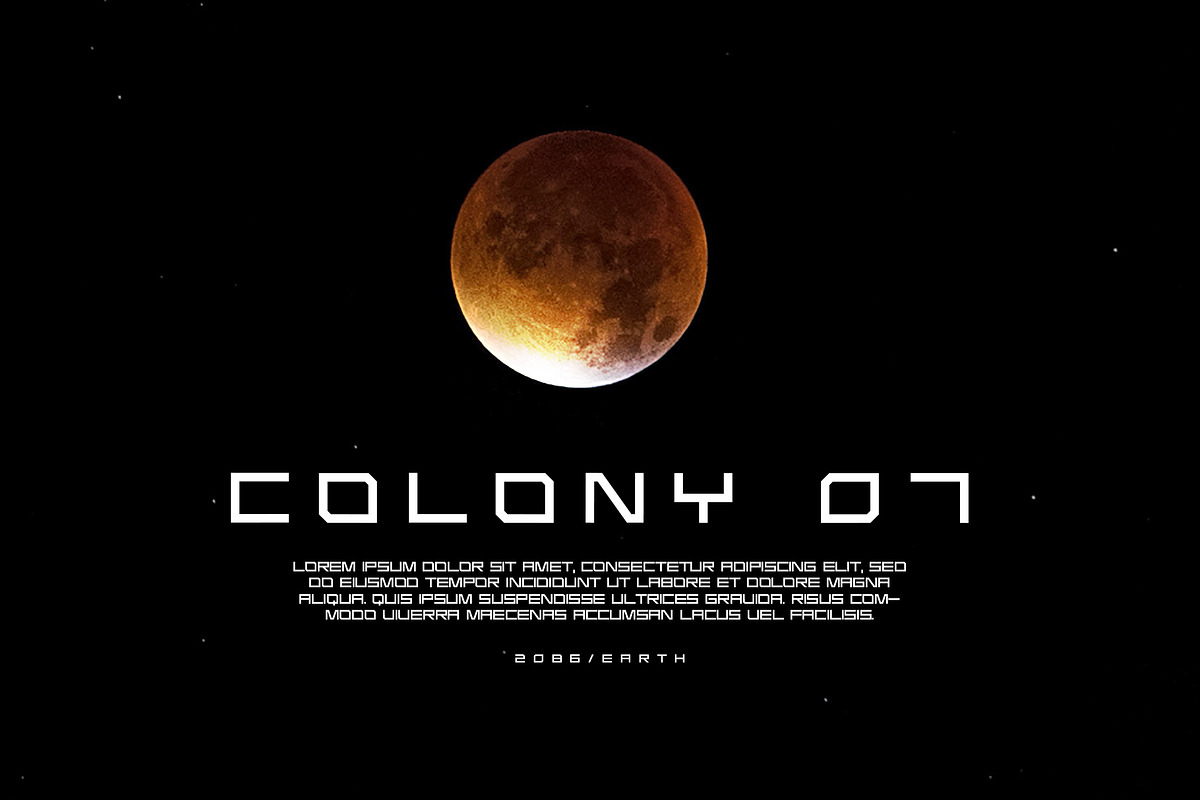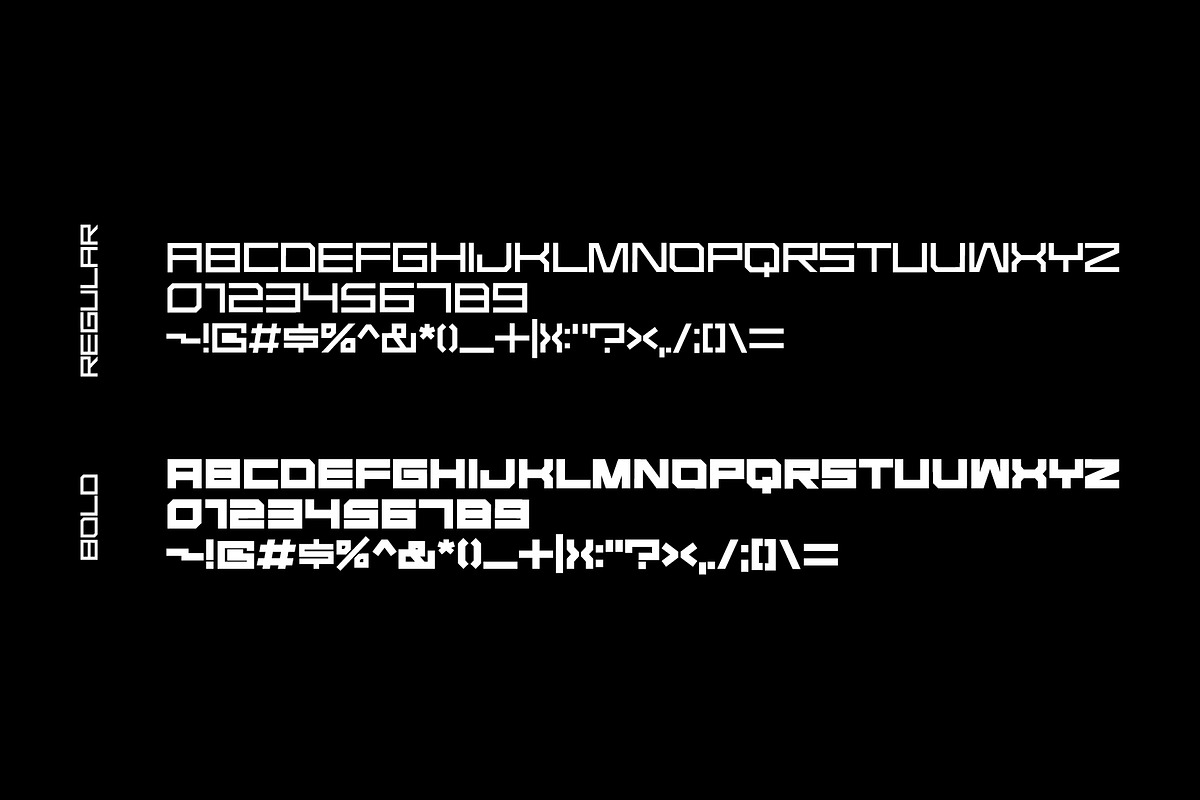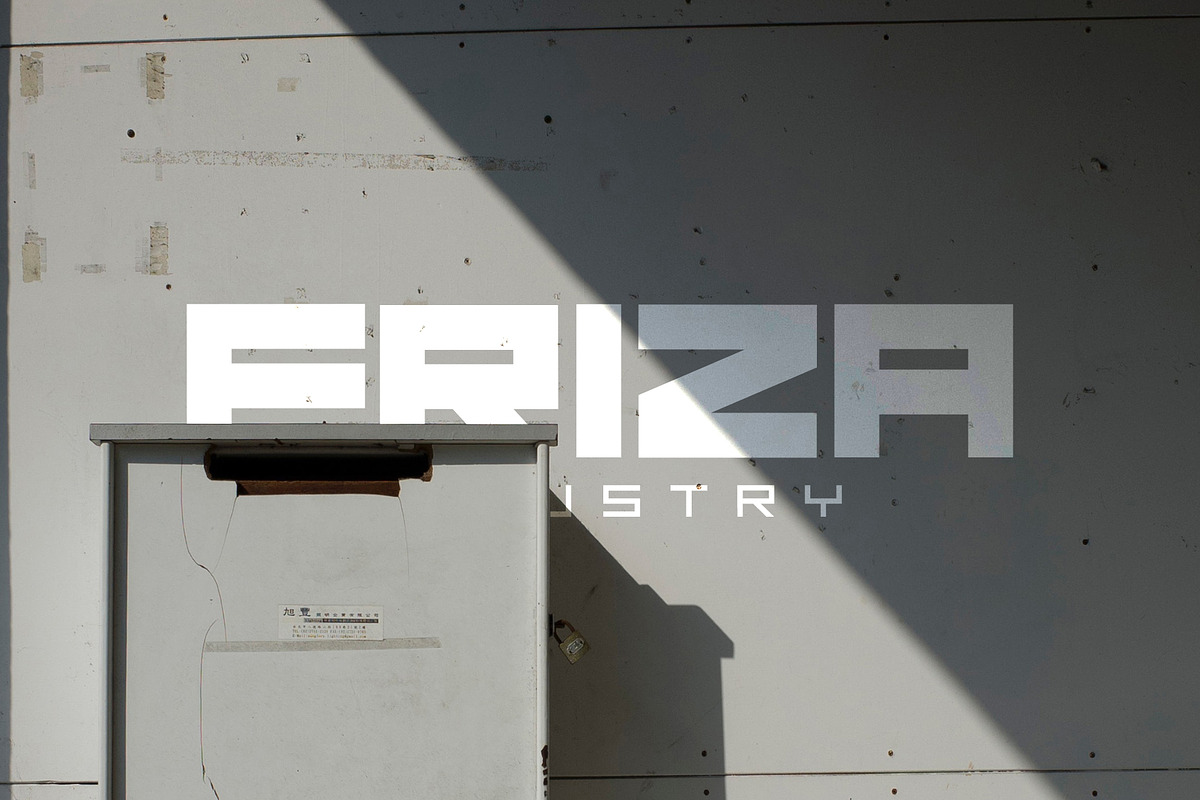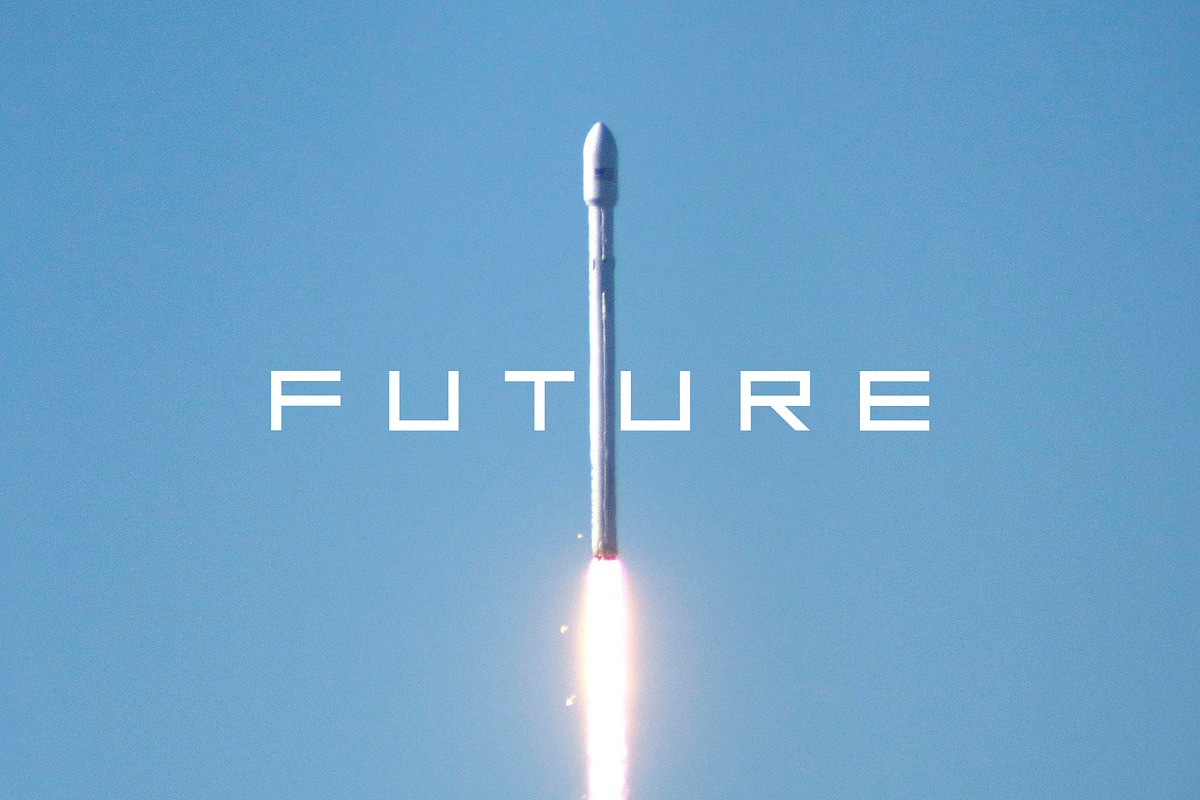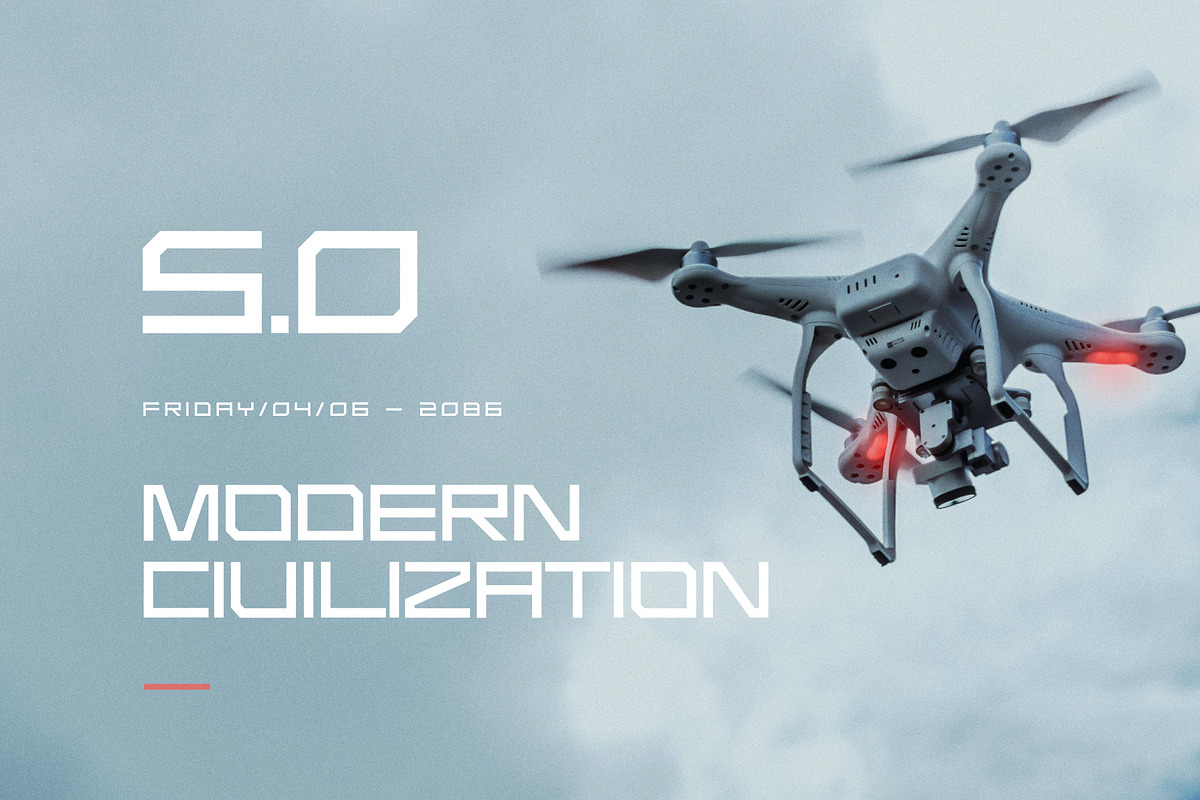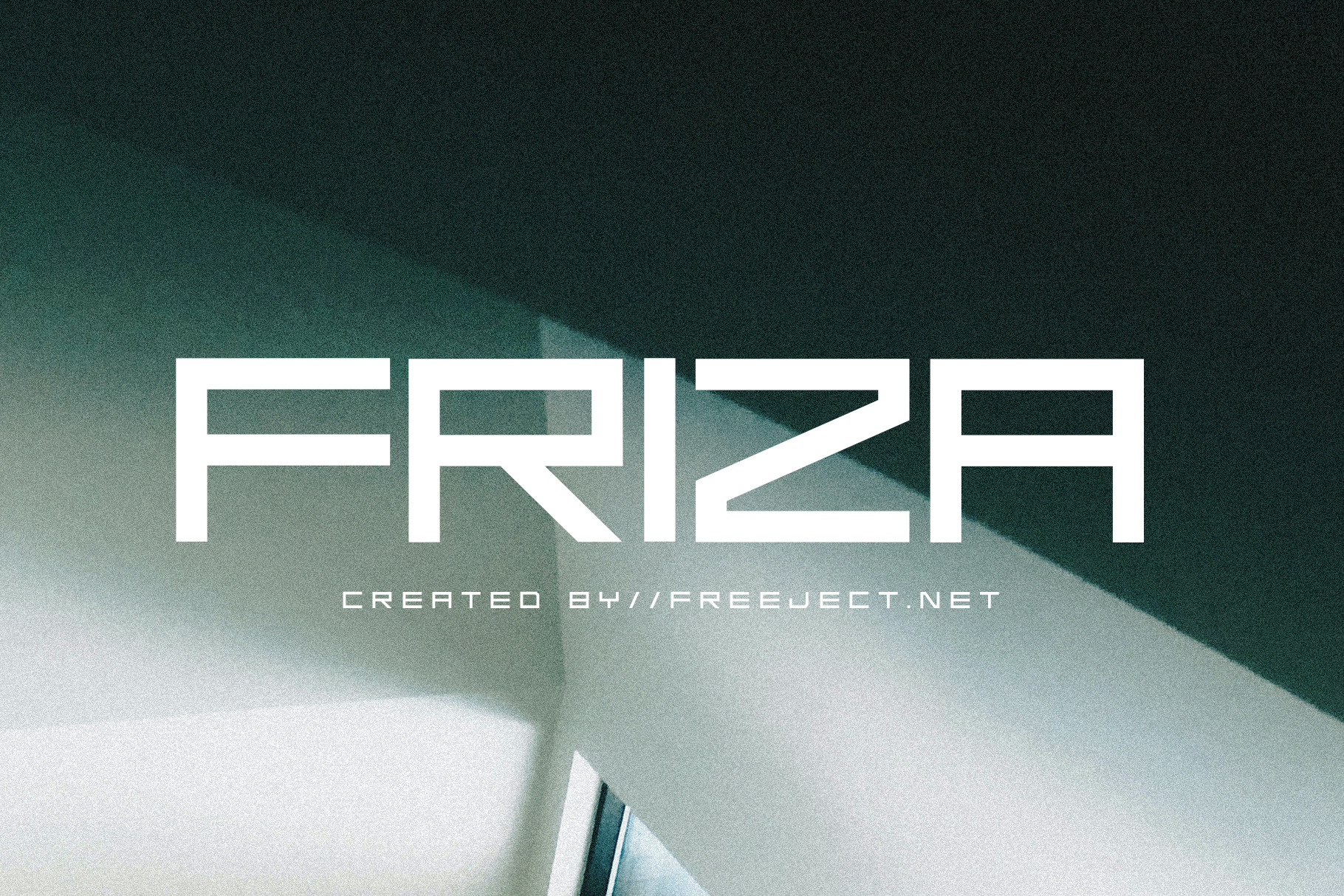
Friza - Futuristic Display Font
The newly released font is here for you. It’s a shape font which is called Friza Font. It’s formed in a rigid font which has a square corner and geometric look. It has strong characters, how the font is created makes it have a firm and powerful impression. It’s best to represent a futuristic theme design and can be considered as a display font since this font could be best to make something to be different and highlighted. It is most suitable for titles, logo, poster, and highlight font. A short paragraph is okay though. Something related to multimedia, newest technology, or space observation might be best to be promoted using this font. Using this font for your advertising needs might make your board to be attention and easy to look at. It could be easy to make people aware of your promotions.
This font is provided in two versions, they are bold and regular. All of them are definitely mesmerizing. Using this font would highlight your project perfectly. You can check the preview above, this font is truly promising to decorate your design. It’s easy to use, just as usual font you just need to install it on your computer and you could freely use it for everything you want to.